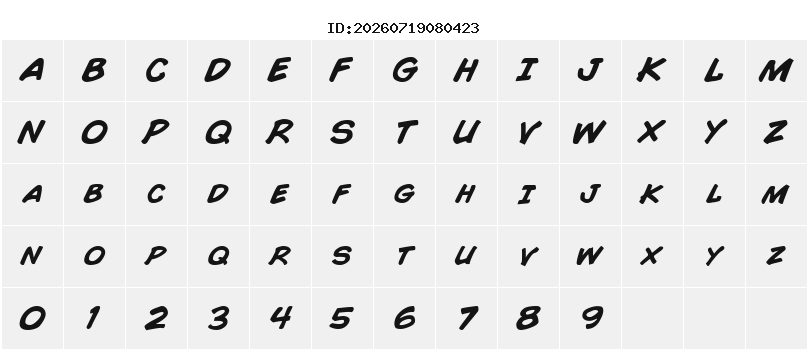
Comic Book Preview
• Font Name: Comic Book
• Full Font Name: Comic Book Bold Italic
• Designer: Neale Davidson
About Comic Book.ttf
Comic Book.ttf is a modern, elegant sans-serif font designed for ultimate readability and visual harmony. Perfect for branding, headlines, web design, and print materials.